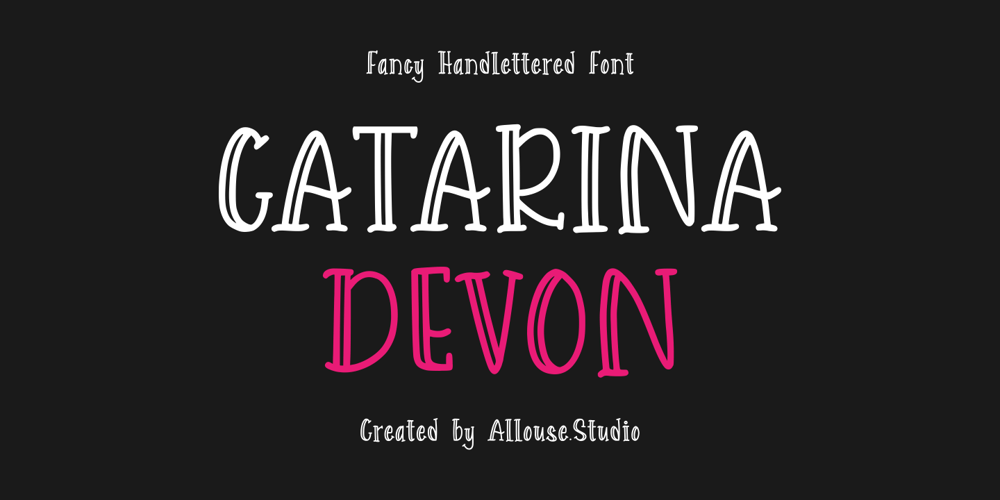
Catarina Devon Font Family was designed by Fachrizal Yusuf and published by Allouse Studio. Catarina Devon contains 1 styles and family package options. Proudly Presenting Catarina Devon a Fancy Handlettered Font.Catarina Devon come along with Multi-Lingual Support to fulfill your need.We highly recommend using a program that supports OpenType features and Glyphs panels like many of Adobe apps and Corel Draw, so you can see and access all Glyph variations.Catarina Devon is perfect for any tittle, logo, product packaging, branding project, megazine, social media, wedding, or just used to express words above the background.Enjoy the font, feel free to comment or feedback, send me PM or email.